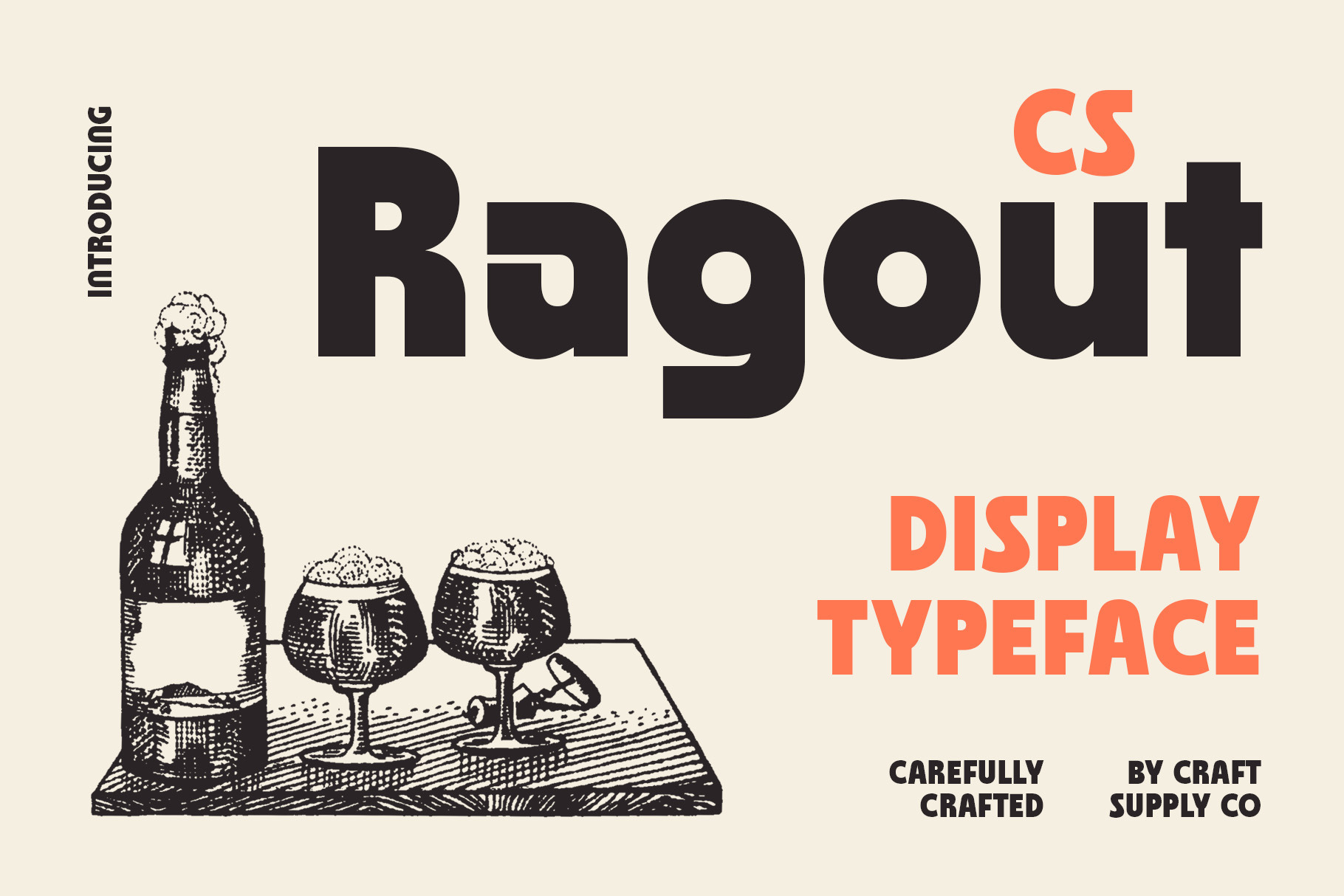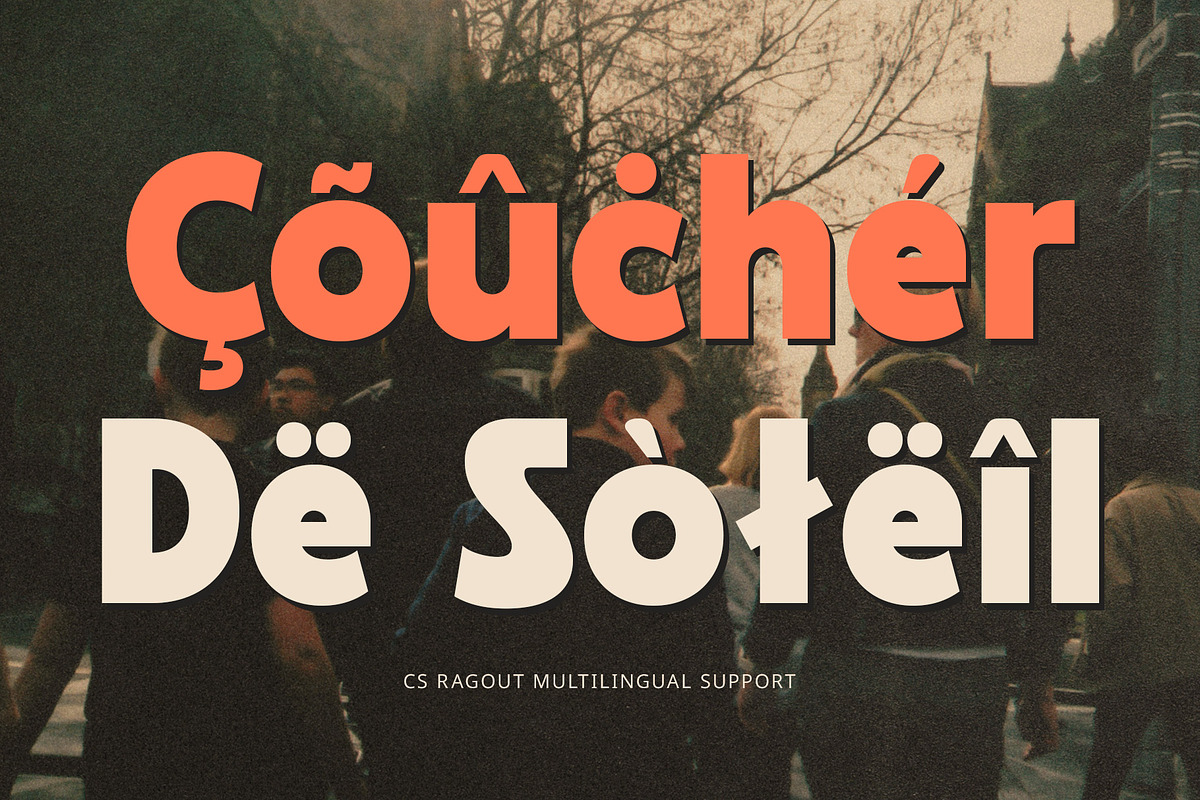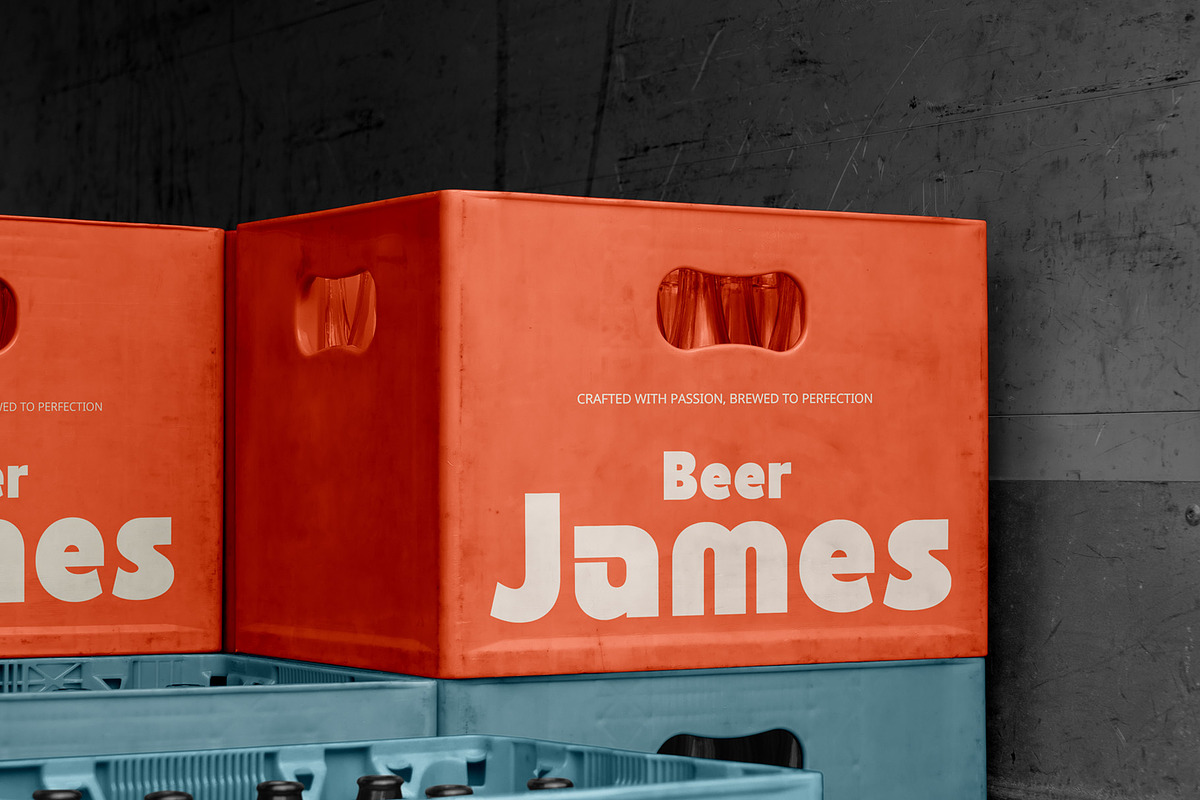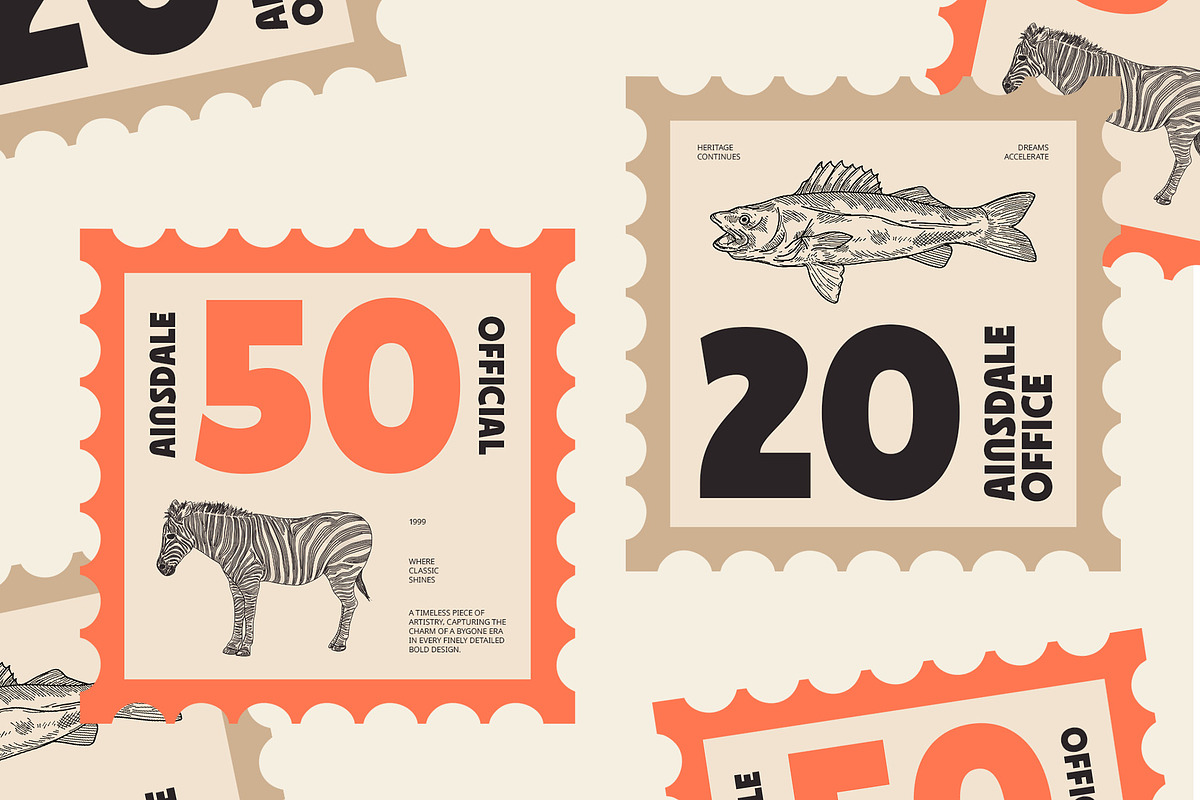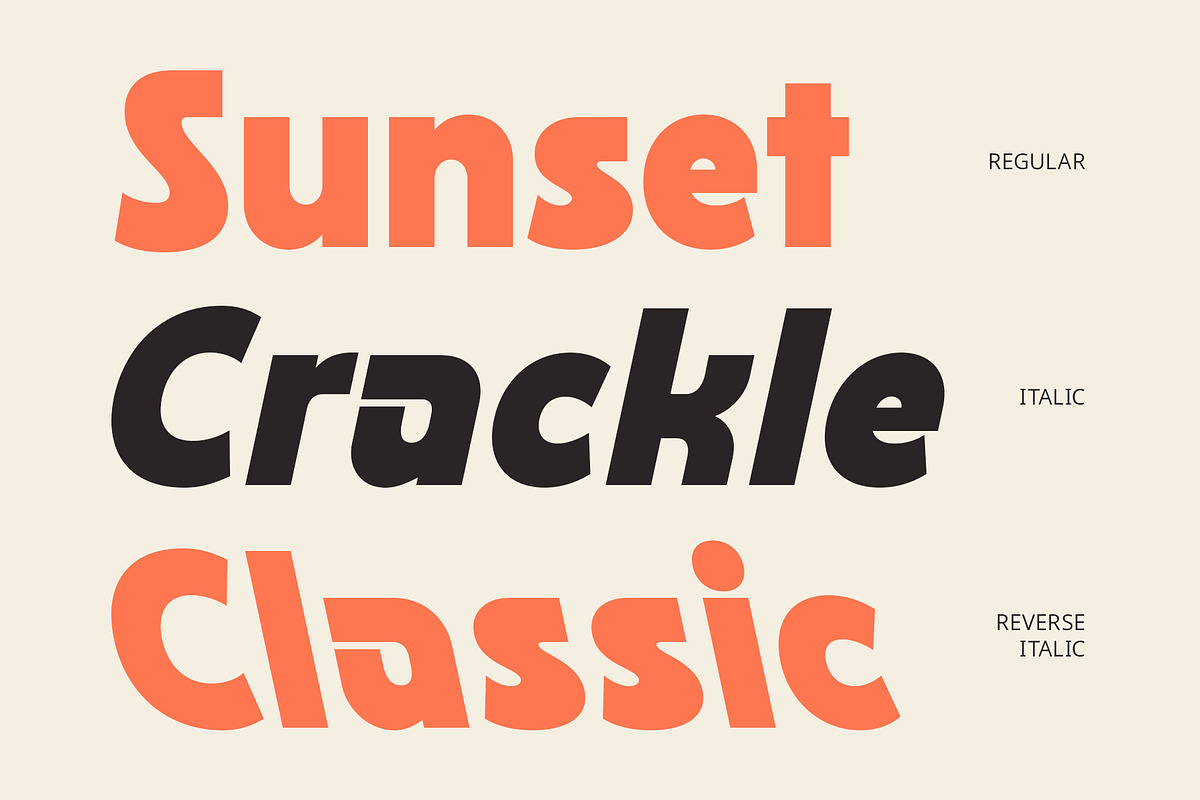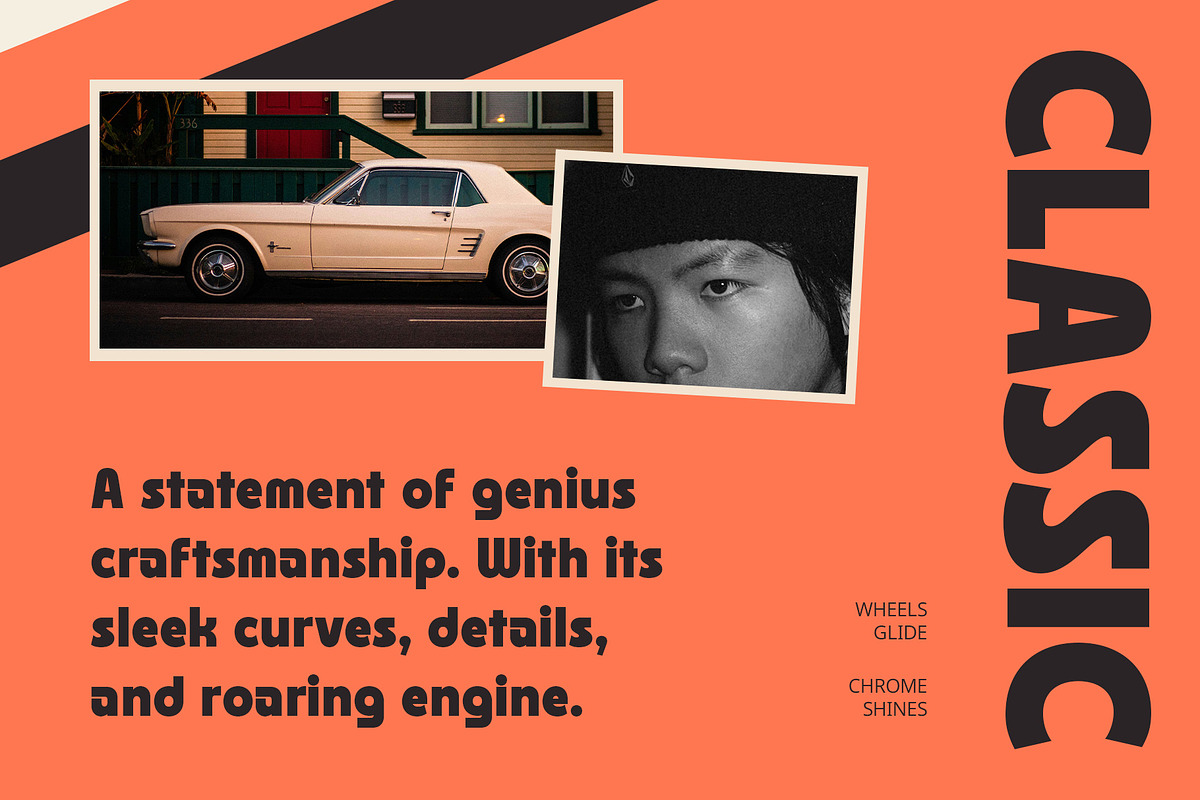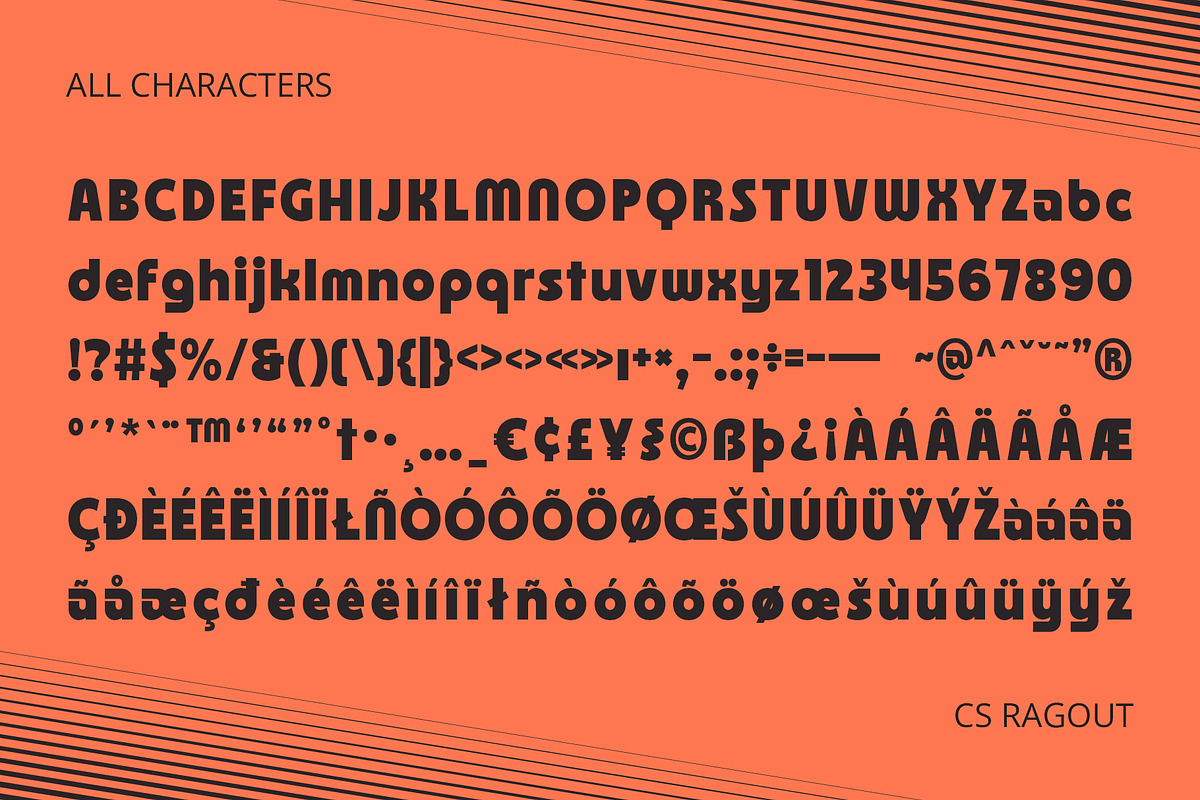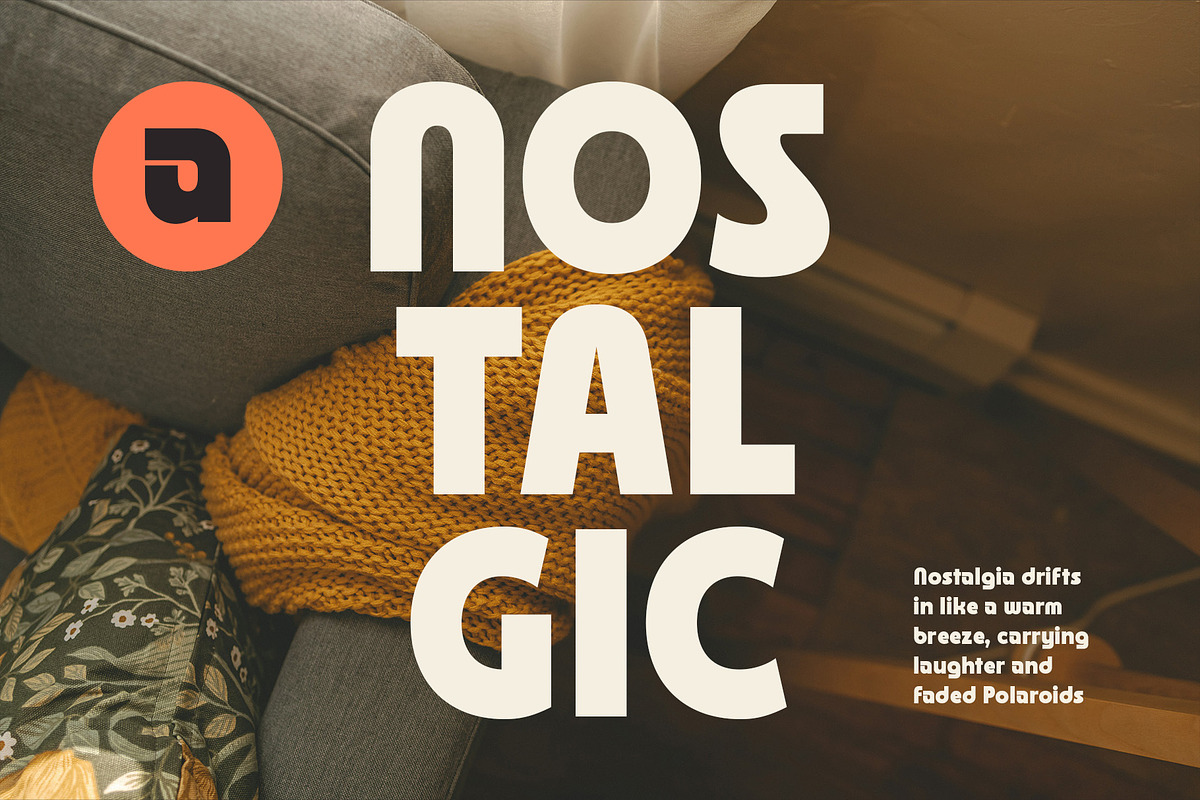
CS Ragout – Bold Font
CS Ragout – Bold Font: A Playful Statement of Strength
A Bold and Funky Display Font CS Ragout is a modern sans-serif display font designed to bring boldness and personality to any design. Its thick, dynamic letterforms exude confidence, while the funky, expressive details add a lively touch. This font is made for those who want to make a statement with style.
Unique Curves and Playful Accents With unconventional proportions and smooth, energetic curves, CS Ragout captures a sense of movement and fun. Its playful yet structured design creates a balance between modern aesthetics and artistic freedom, making it a perfect choice for standout visuals.
Perfect for Eye-Catching Designs Whether used for branding, posters, product packaging, or social media graphics, CS Ragout ensures high visibility and impact. Its bold presence makes it ideal for projects that demand attention-grabbing headlines and memorable typography.
Versatile and Expressive for Modern Creativity CS Ragout blends modern sophistication with an expressive twist, making it suitable for a wide range of creative applications. From fashion labels to music artwork and dynamic advertising, this font delivers a strong, fresh, and character-filled look that stands out in any setting.
- CS Ragout Regular
- CS Ragout Italic
- CS Ragout Reverse Italic